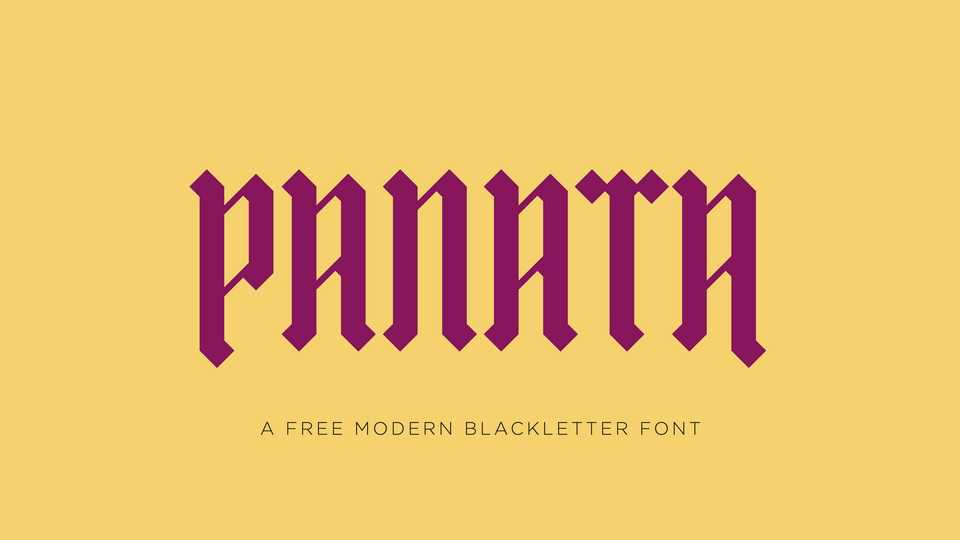
Download Panata font, a modern typeface inspired by blackletter and hand-lettered signs in Manila streets. It’s a strong, dark typeface with a steady rhythm, perfect for short texts, headlines and logos.